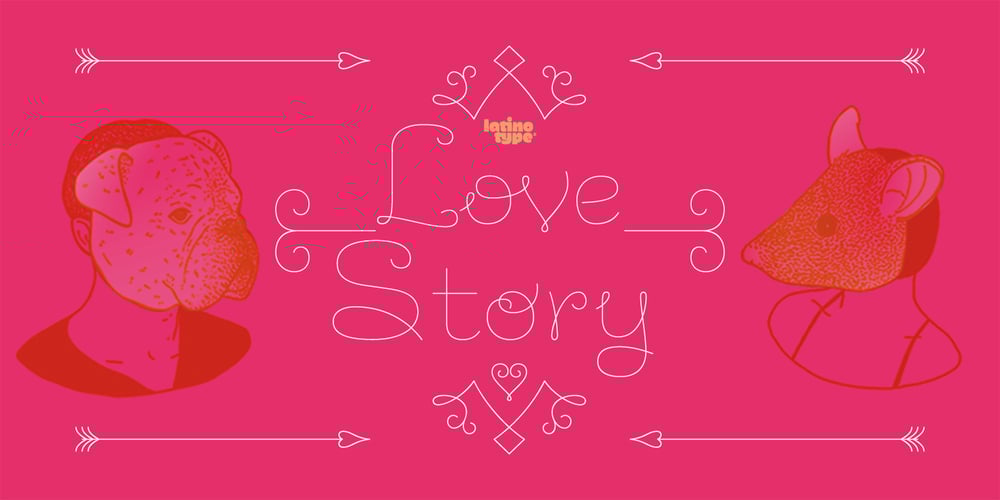
Love Story
Love Story font
Love Story Font Family was designed by Luciano Vergara, Guisela Mendoza and published by Latinotype. Love Story contains 2 styles and family package options. Love story is a display hairline typeface for use in big sizes and short texts. It’s inspired by different kinds of love and specially designed for Valentine’s day. Its soft curves and sweet style give it a lovely personality. Designed by Luciano Vergara and his wife Guisela Mendoza who has been studying ornaments since 2007 and has done her best for each project. You can see in her dingbats specially Printa and Abel designed for generate patterns. Now she integrated her passion to the ornament in a clean set which includes dingbats, ornaments and patterns. Luciano Vergara has designed very strong fonts with a particular work in the lines study and close to the geometry since 2005, getting a structure style, you can see in his fonts specially Regia and Kahlo. Now he integrated his study of lines, in a hairline font delicate, continuous and beautiful. In this story both designers have been merged their worlds creating a gorgeous product. This is a romantic type story, a love story.